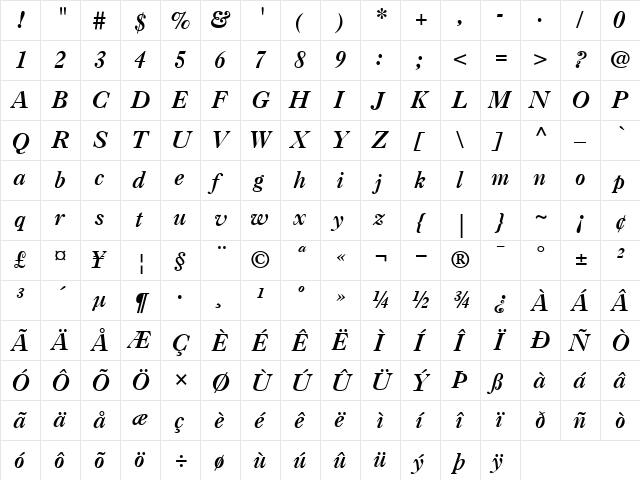
Caslon3 RomanItalic
Design Context for Caslon3 Typeface
Caslon3 offers clean, dependable letterforms without strong stylistic allegiance, making it a practical choice for designers who need flexibility. The slanted form adds forward momentum and visual energy.
Pro Tip: Try Caslon3 for annotation and caption copy alongside an upright companion — the contrast in angle creates a dynamic but ordered typographic system.